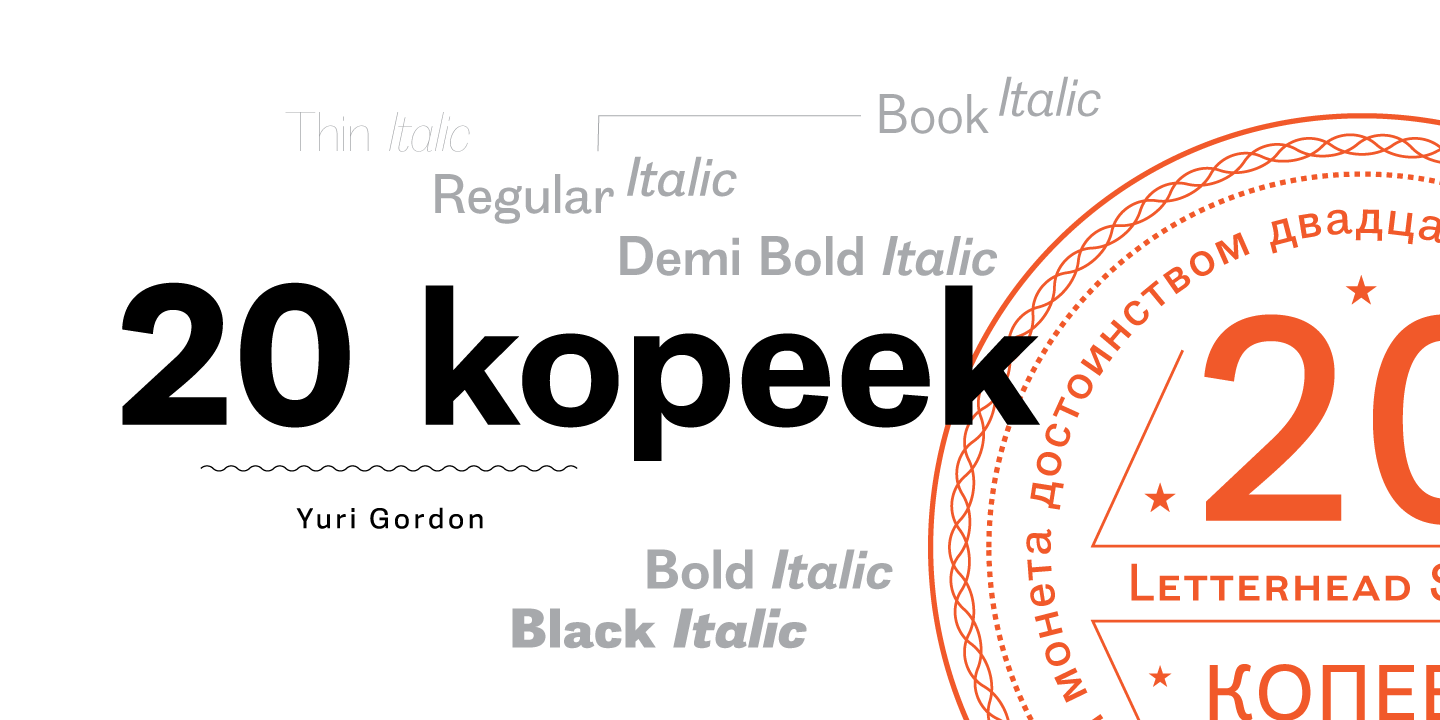
20 Kopeek Font is perfect for Russian restaurant branding, Soviet-era museum exhibitions, Eastern European cultural centers, vintage Moscow café signage, historical documentary titles, Slavic heritage festivals, traditional Russian craft labels, Cold War themed events, nostalgic bar materials, and authentic Russian vodka packaging.
What makes 20 Kopeek Font so exciting is its authentic embodiment of Soviet-era nostalgia and Russian cultural heritage through historically inspired letterforms that capture the distinctive aesthetic and industrial spirit of mid-20th century Eastern European design. The font's design philosophy honors the bold simplicity and utilitarian beauty of Soviet typography, featuring strong geometric foundations, purposeful proportions, and period-authentic details that mirror the robust construction of Soviet architecture, the straightforward clarity of state propaganda posters, and the enduring strength of Russian cultural identity. Each character stands with the dignity and resilience that defined an entire era, creating a visual language that instantly communicates historical authenticity, cultural pride, and the fascinating complexity of Soviet design heritage that continues to influence contemporary typography and graphic design.
The 20 Kopeek Font family includes historical variations: Regular, Bold, Light, Medium, Condensed, Extended, Italic, Soviet, and Industrial styles. Each variation maintains the font's characteristic Soviet authenticity while offering different levels of historical intensity and period detail for various cultural heritage and vintage design applications.
When searching for a typeface that embodies the essence of Soviet design and Russian cultural heritage, 20 Kopeek Font Free Download represents the perfect fusion of historical accuracy with contemporary functionality that elevates any project to new levels of cultural authenticity and historical appeal.
The historically crafted letterforms of 20 Kopeek Font demonstrate superior attention to period design principles, featuring Soviet proportions, industrial spacing, and authentic curves that ensure optimal readability while maintaining the font's distinctive historical character. Its versatile design adapts seamlessly from intimate historical documents to grand cultural exhibition displays.
Professional designers working on cultural institutions, historical projects, and Eastern European brands particularly value the font's ability to convey historical authenticity, cultural significance, and Soviet-era appeal. The typeface works exceptionally well for projects targeting history enthusiasts, cultural researchers, and anyone seeking to project authentic positioning and historical excellence.
The comprehensive OpenType features of 20 Kopeek Font include historical alternates, Soviet-inspired ligatures, and specialized period characters that enable designers to create authentic historical typography while maintaining the font's distinctive cultural character throughout all design elements and heritage applications.